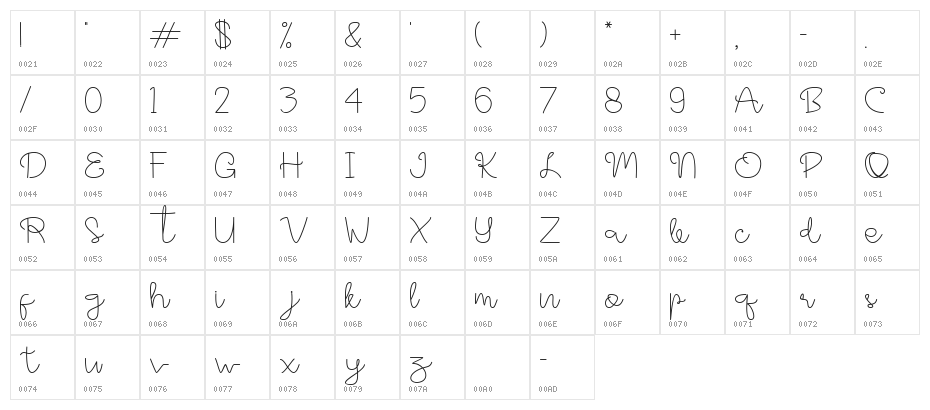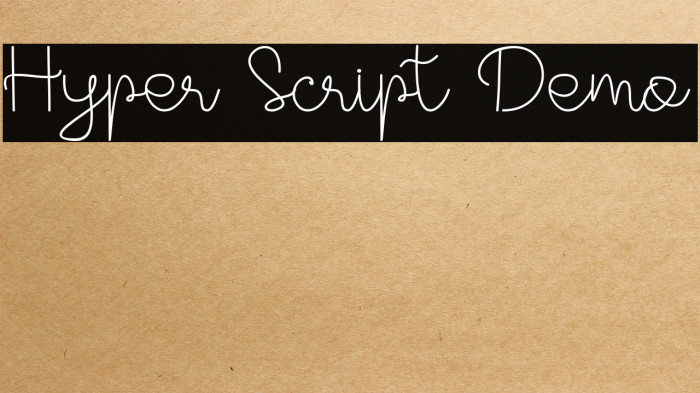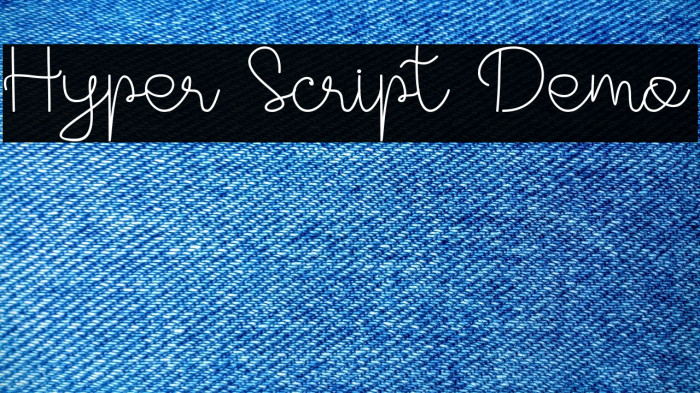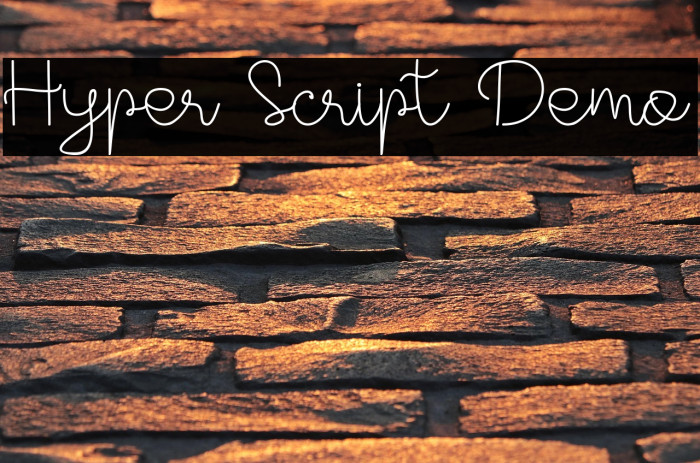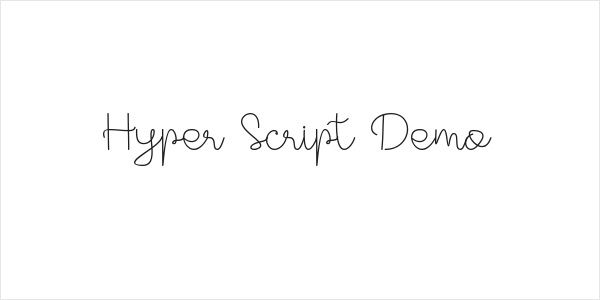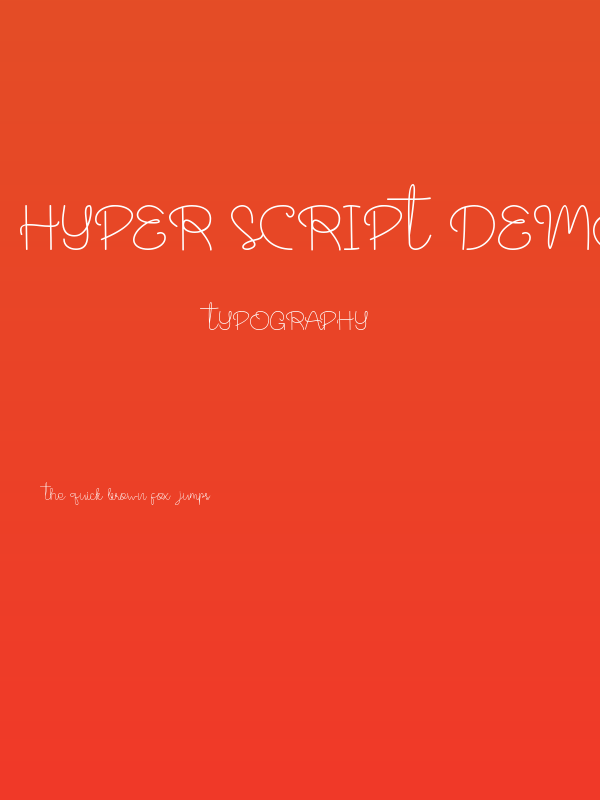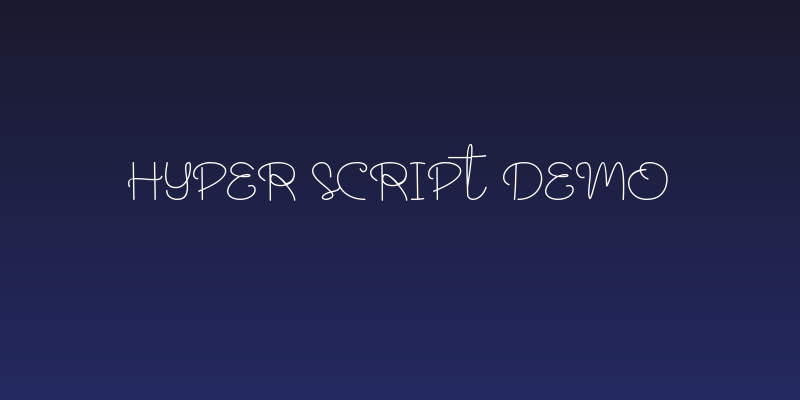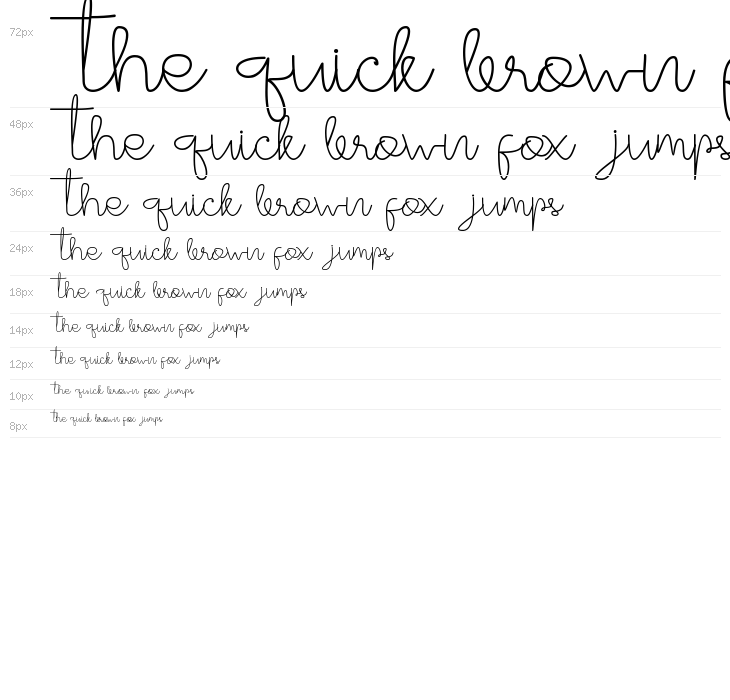
Hyper Script Demo Font
Hyper Script Demo Description
This font features a playful and whimsical script style, characterized by its fluid and continuous strokes that mimic the natural flow of handwriting. The uppercase letters are distinct with a slight slant, while the lowercase letters exhibit a more pronounced cursive flair, adding to the font's charm. The numerals are consistent with the overall style, maintaining a balance between legibility and artistic expression. Special characters are creatively integrated, enhancing the font's versatility. The thin lines and open loops give it a light and airy feel, making it suitable for designs that require a touch of elegance and personality.
| Overall Style | Whimsical |
| Use Case | Logos, Invitations, Greeting Cards |
| Proposed Projects | Ideal for wedding invitations, greeting cards, personal branding, and creative projects that require a personal touch. |